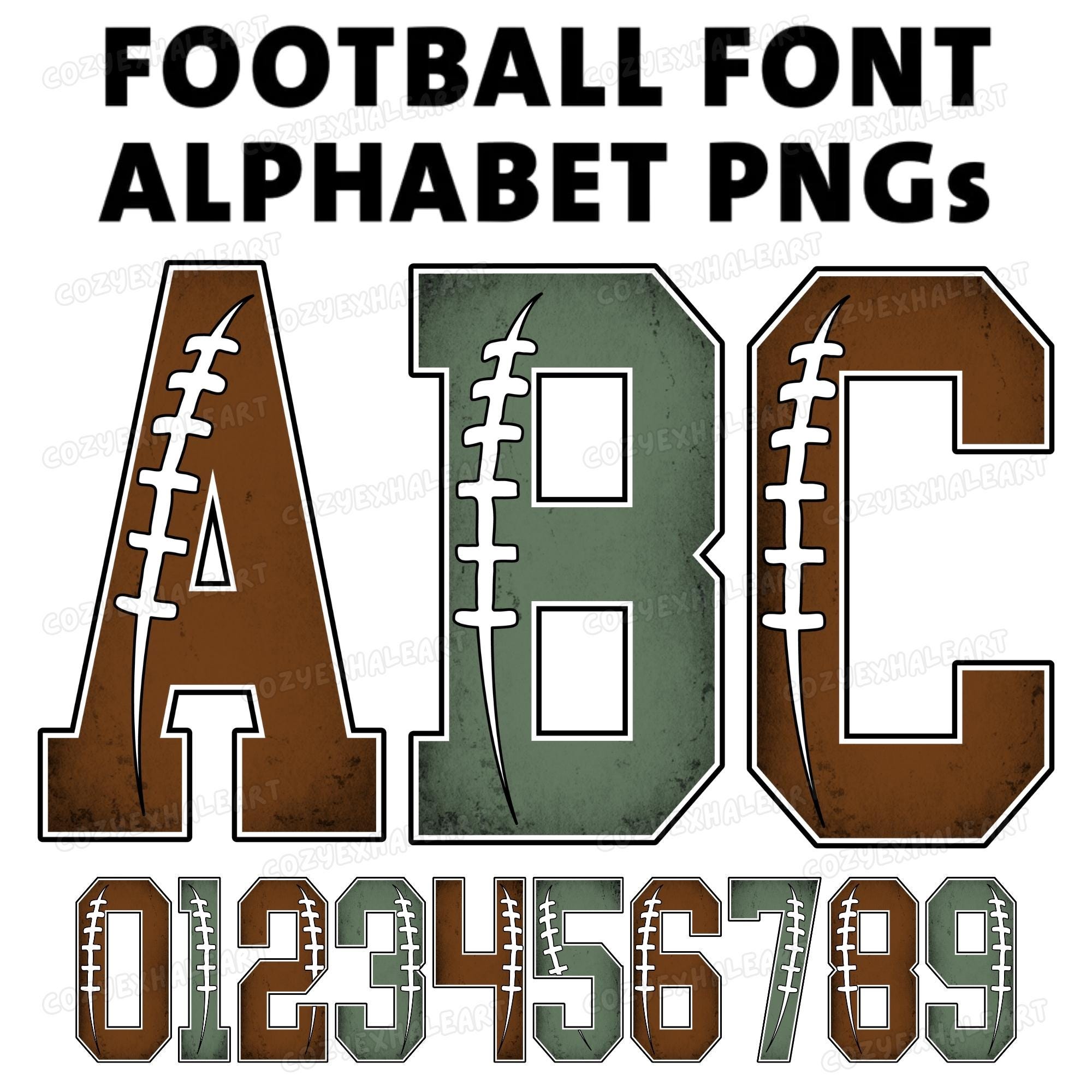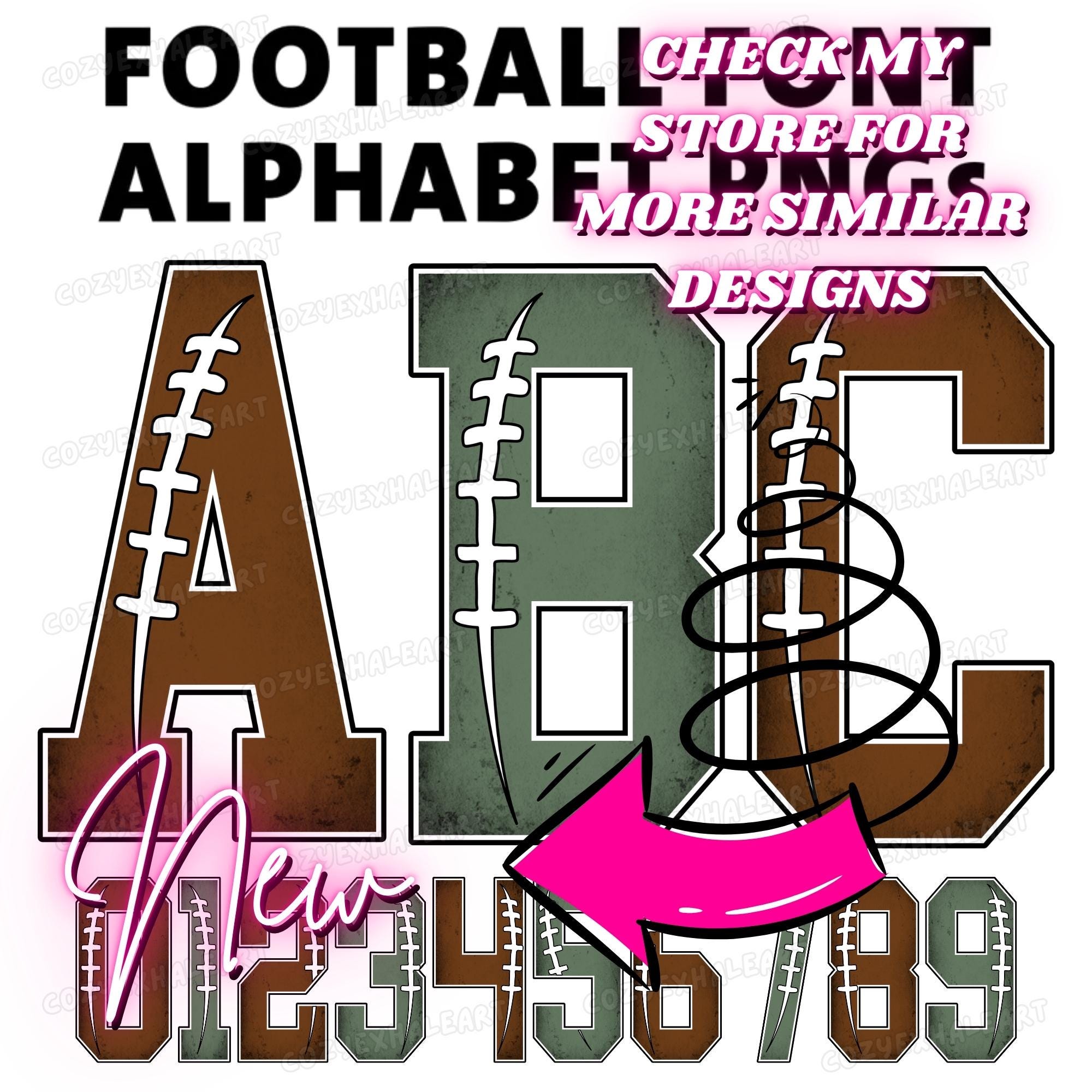
Football Varsity Font PNG Bundle – Athletic Alphabet Letters for Team Sublimation, College Sports Doodle Clipart, Digital Download
Celebrate your team spirit with this Football Varsity Font PNG Bundle, designed for bold sublimation projects and winning personalization! This digital download features high-resolution varsity alphabet letters, infused with hand-drawn football doodles — perfect for college sports fans, football moms, coaches, and crafters alike.
Whether you're creating custom t-shirts for game day, sports banners, or standout fan gear, these versatile letter designs bring the energy and pride of the field straight to your art. The style fuses athletic edge with fun sketch elements, making every project feel personal, creative, and game-ready.
• Organized A–Z varsity-style font set with extras